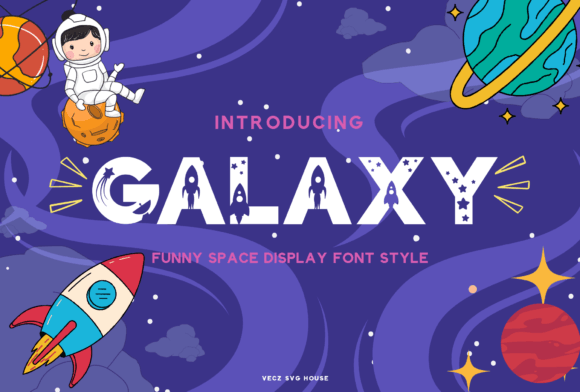
Journey through the cosmos and let your designs shine with Galaxy Font, a celestial masterpiece crafted meticulously to capture the allure of the starry expanse. Immerse yourself in a universe of creativity, where your words become radiant stars, illuminating the horizons of possibility. Ignite your imagination and set your projects ablaze with the brilliance of the cosmos, as Galaxy Font paints the canvas of your ideas with an intergalactic glow.
With Galaxy Font as your cosmic companion, embark on a voyage of limitless expression. Its clean lines and chic curves embody the grace and boundless beauty of the galaxies, transforming your designs into dazzling constellations that captivate and inspire. As you weave your words into existence, they'll dance across the screen like shooting stars, leaving a trail of brilliance in their wake.
Unleash your inner artist and elevate your projects to new heights with Galaxy Font. Its versatility knows no bounds, seamlessly adapting to a symphony of creative endeavors. Whether you're crafting logos that shimmer like distant galaxies, designing websites that transport visitors to the far reaches of the universe, or creating social media posts that spark conversations about the wonders of space, Galaxy Font is your celestial muse.
Make Galaxy Font your cosmic companion and watch your designs take flight, ascending to a realm of awe-inspiring creativity. As you delve into its depths, you'll discover a universe of boundless possibilities, where imagination reigns supreme, and your projects become vessels carrying the essence of the stars. Embrace the beauty of the cosmos and let Galaxy Font illuminate your creative journey, guiding you towards a celestial symphony of success.